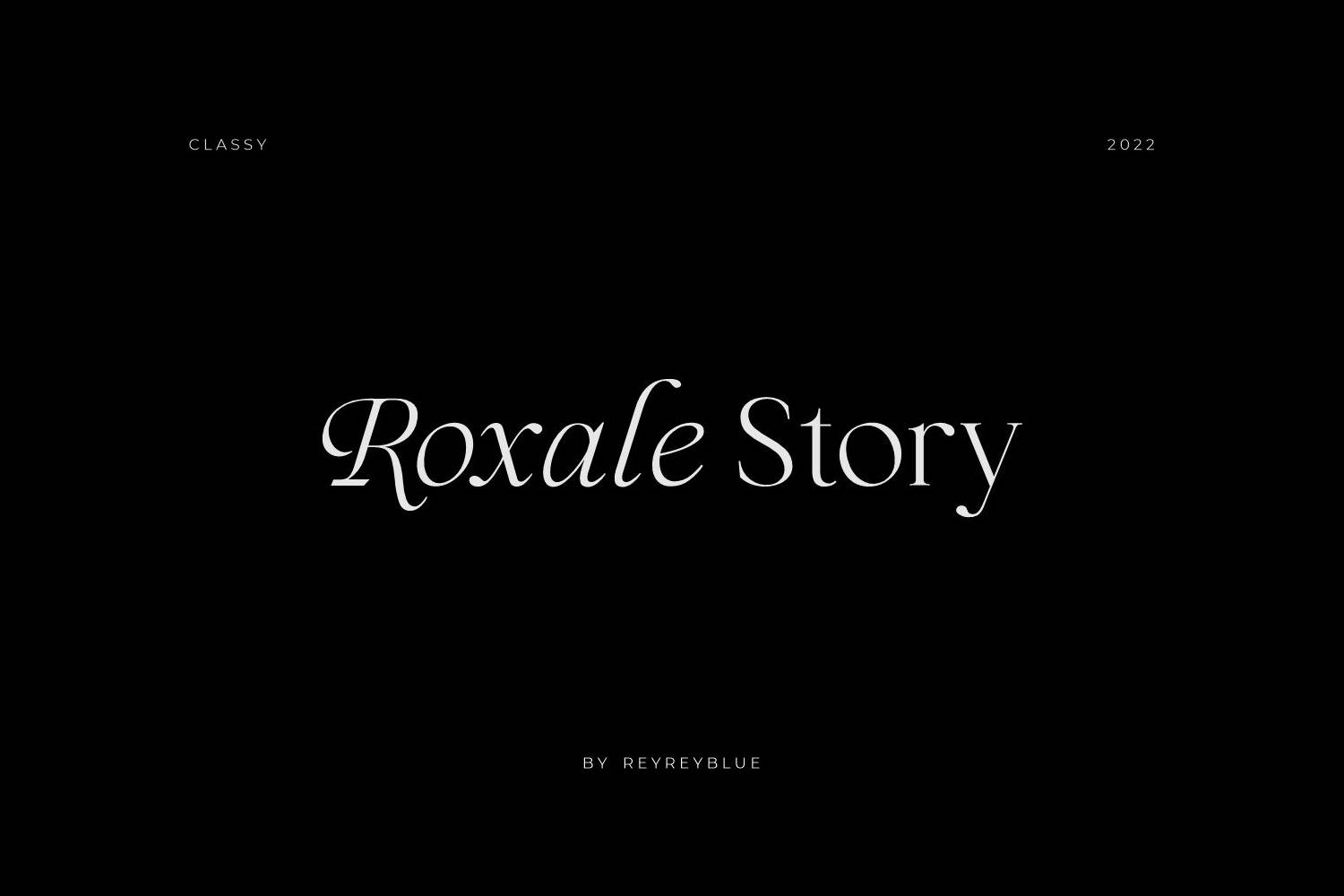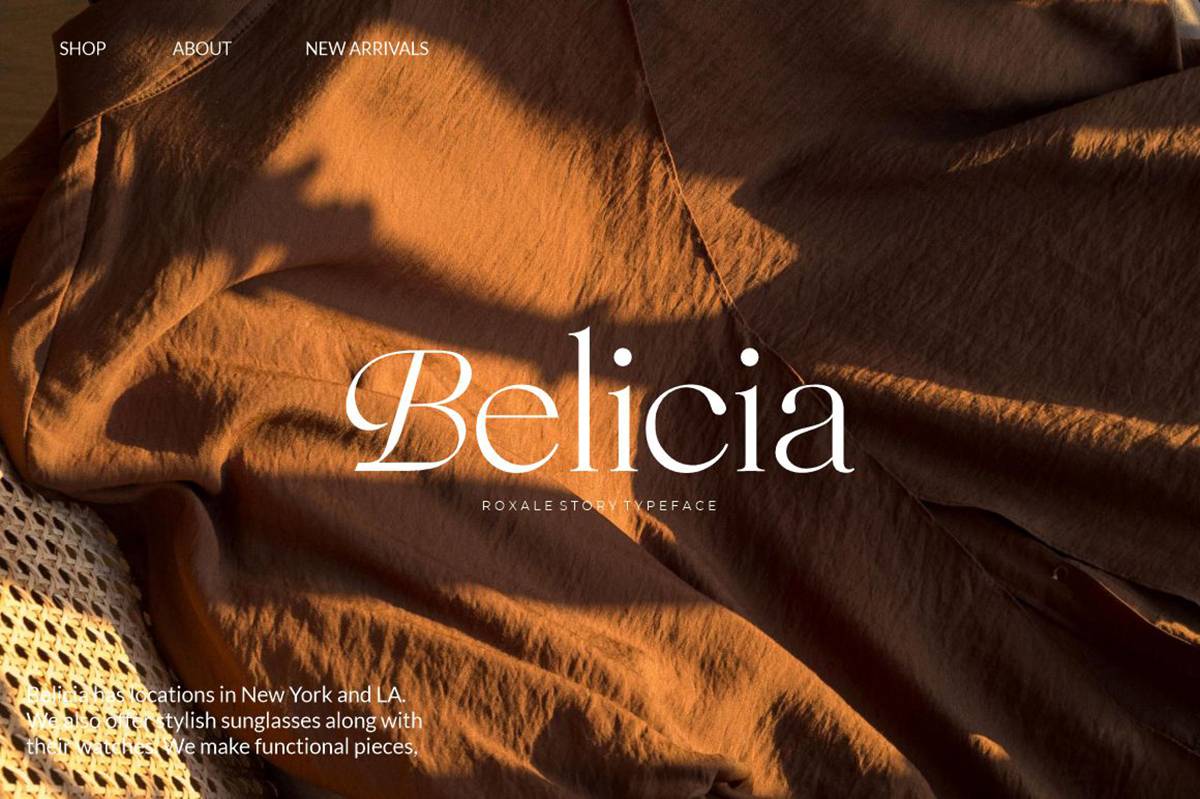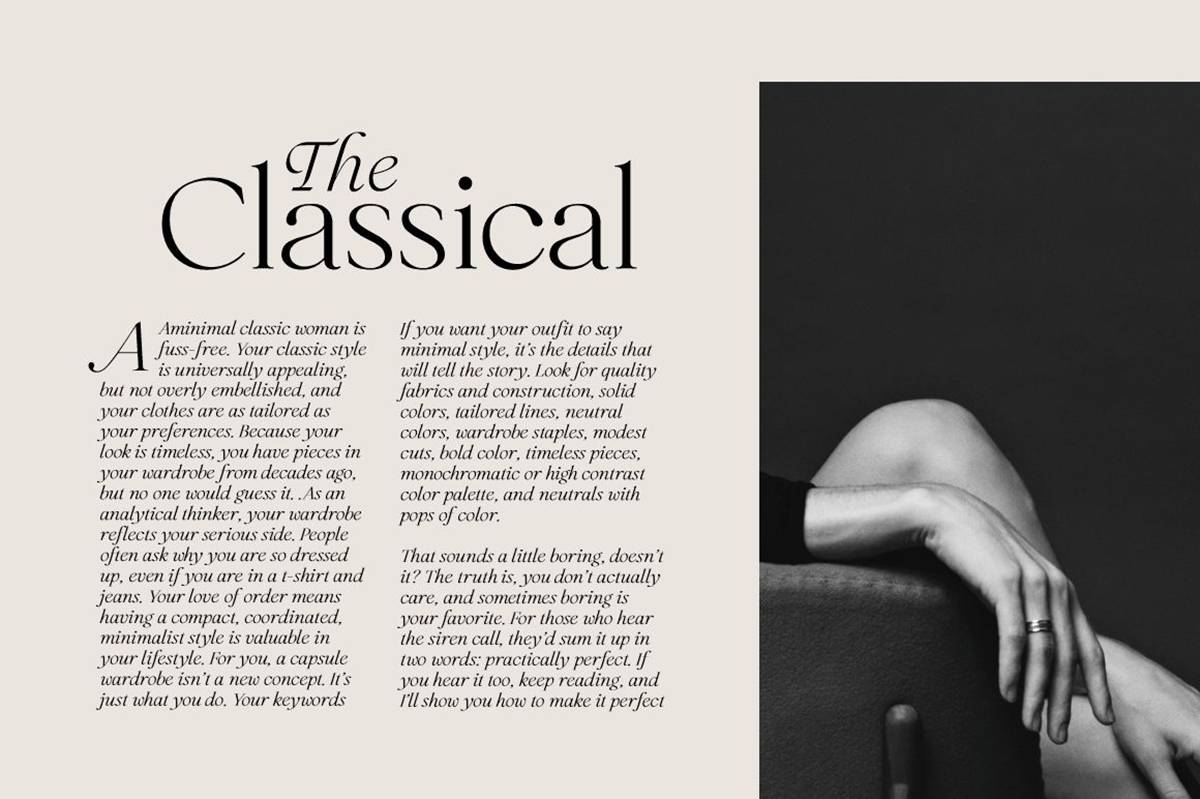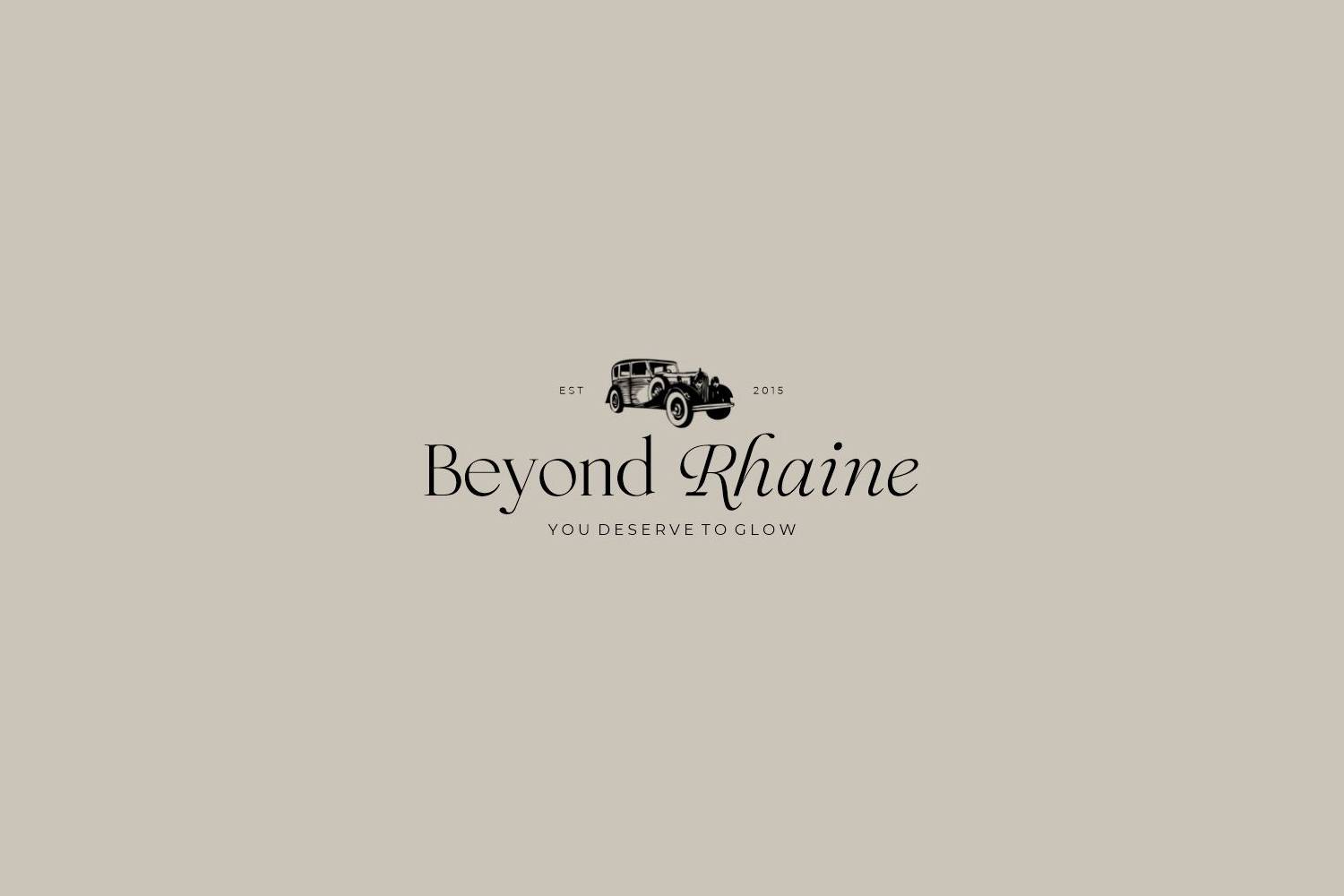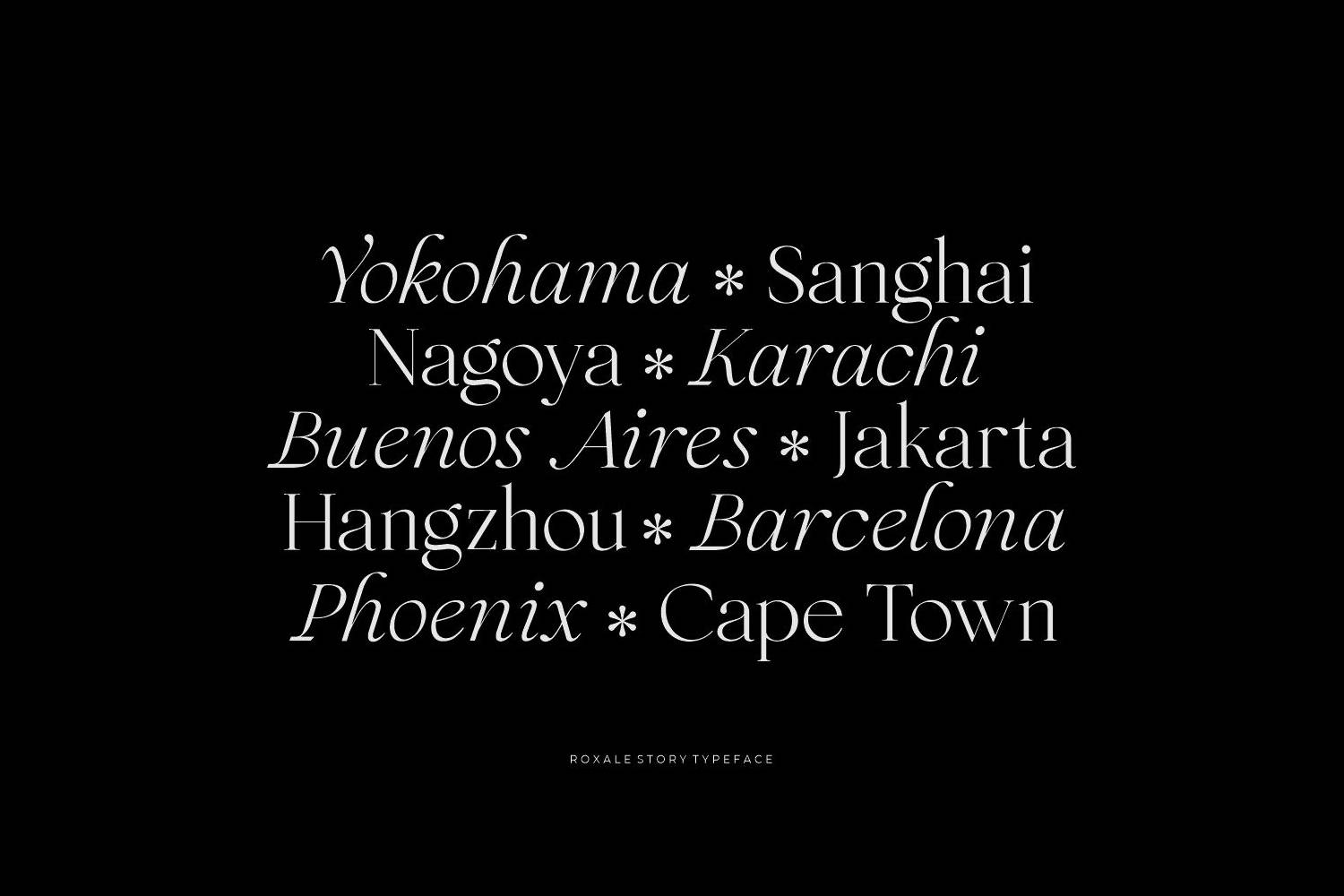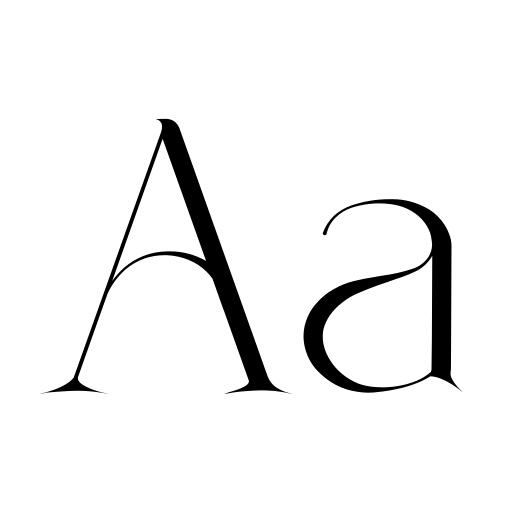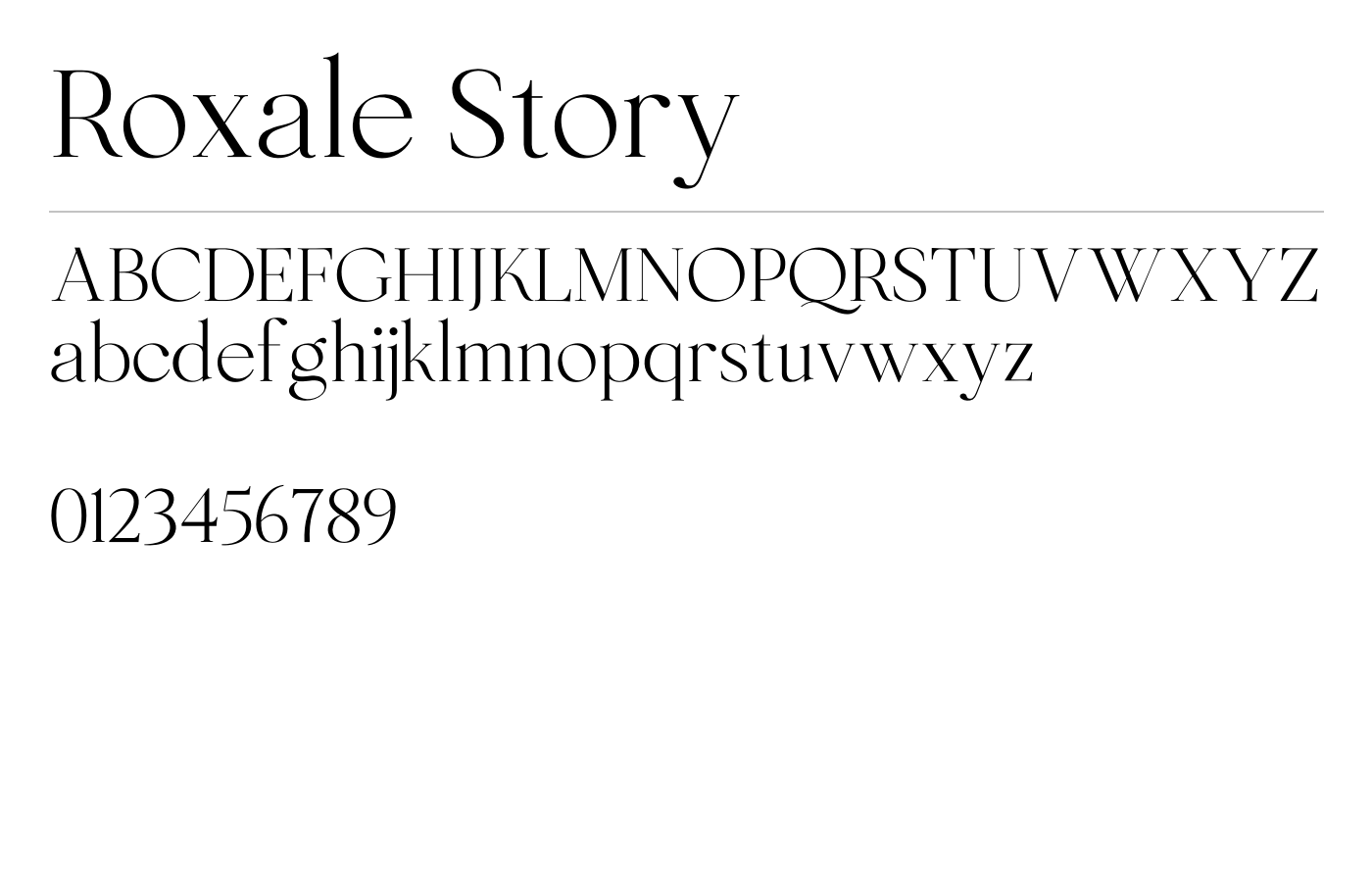
Roxale Story is a refined serif font with a high contrast between thick and thin strokes, featuring elegant bracketed serifs and a tall x-height that enhances readability. Its delicate, modern letterforms with unique details like the styled Q tail and single-story g convey sophistication, making it ideal for luxury branding, editorial headlines, and fashion-focused designs. This font's graceful and timeless appearance lends a polished, upscale feel perfect for projects that want to communicate elegance and style.
Roxale Story Font
About Roxale Story Font
| Font family | Roxale Story Font |
| Designer | Risca Anitawati |